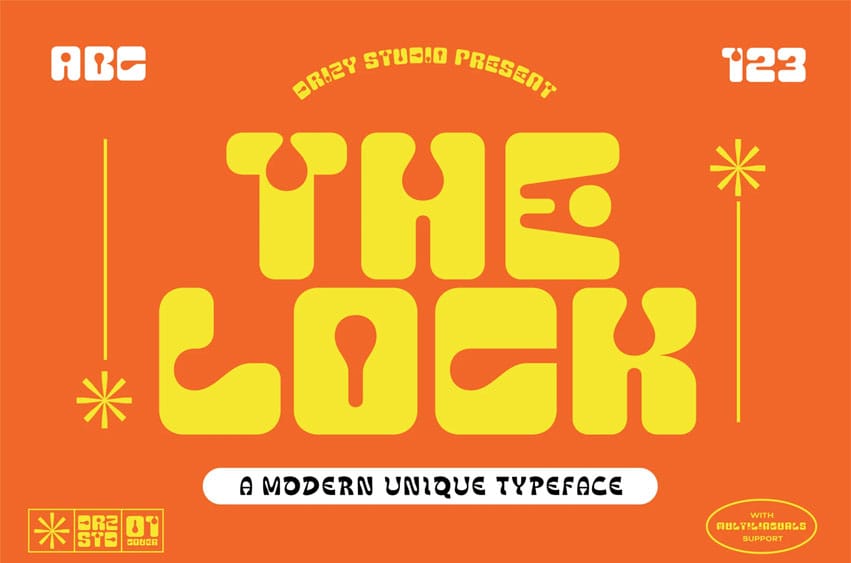
The Lock Font Modern Unique Font from Drizy studio. Offering all the basic styles you will need, especially for a unique and modern theme project.
The Lock Features: All Caps, Numeral & Punctuation Multilinguals